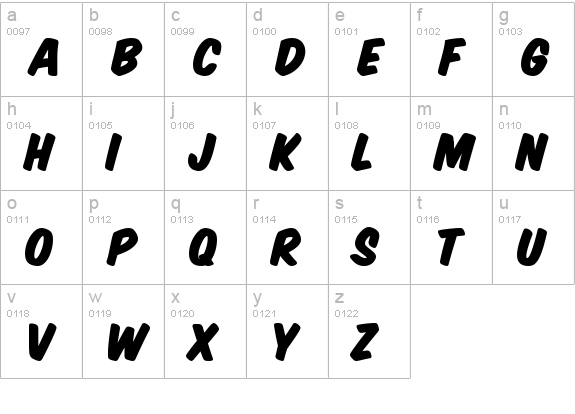
Komika Title - Paint font is a unique and playful typeface that exudes creativity and charm. With its hand-painted aesthetic and quirky design, this font is perfect for adding a fun touch to any project. The irregular strokes and bold letterforms give off a sense of energy and spontaneity, making it ideal for headlines, logos, and other eye-catching designs. The best part about Komika Title - Paint font is that it is completely free! You can easily download it at FontsMarket.com and start using it in your projects right away. Whether you're working on a poster, website, or social media graphics, this font will help your designs stand out and make a lasting impression. Don't miss out on this fantastic opportunity to add a touch of whimsy to your creations with Komika Title - Paint font.